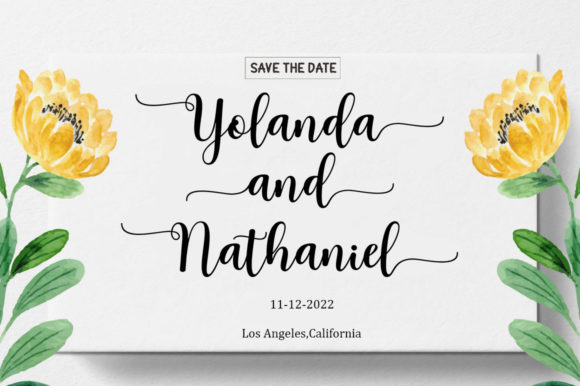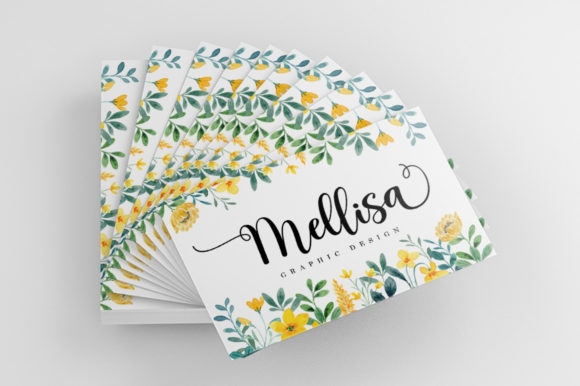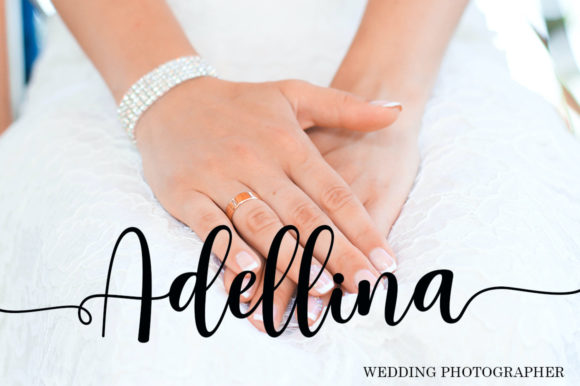
Introduction to Martinoly Font
Martinoly is a beautiful light handwritten font with a unique feel and a stunning impact.
It will add a luxury spark to any design project that you wish to create This font is PUA encoded which means you can access all of the amazing glyphs and ligatures with ease.